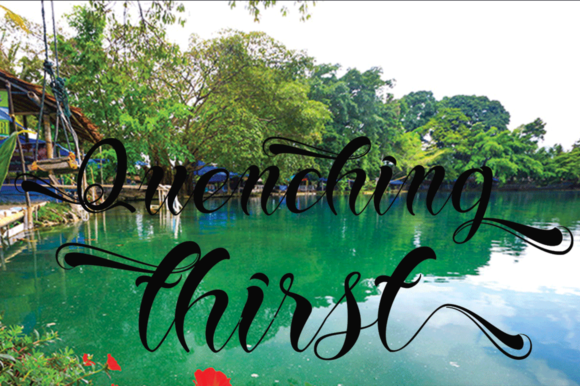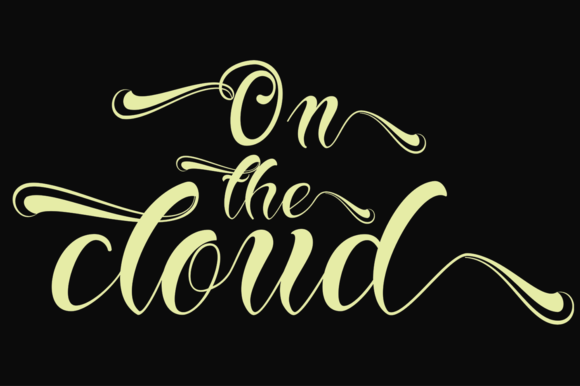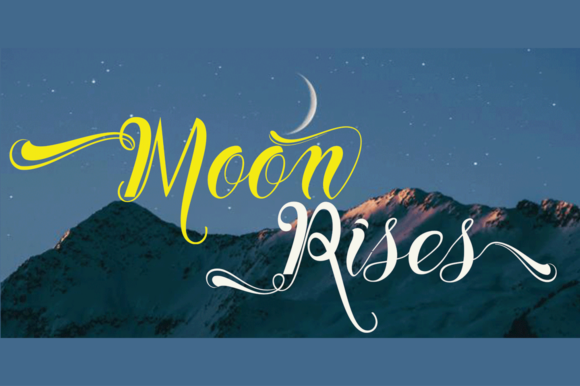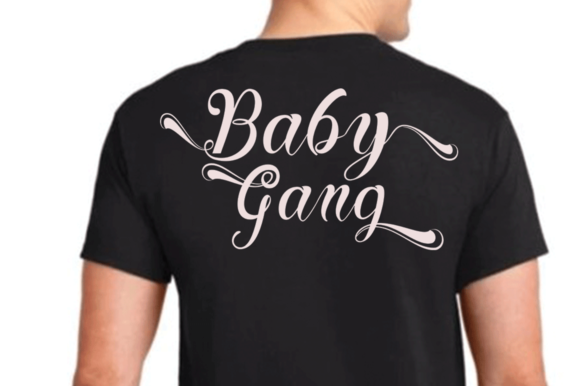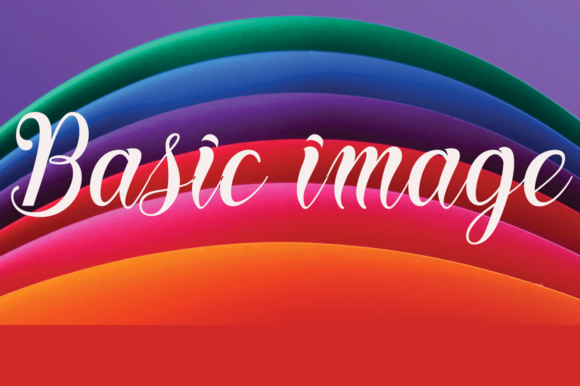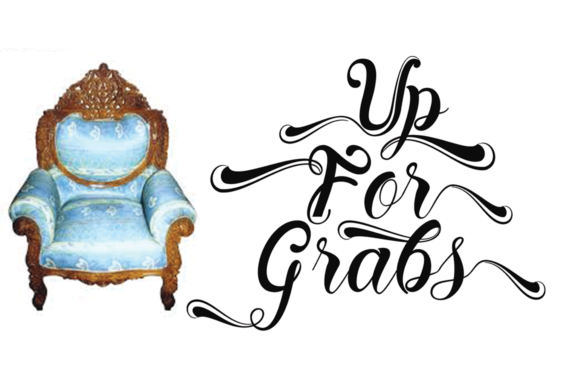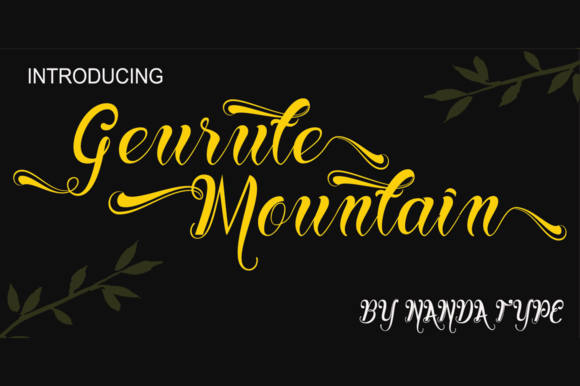
Introducing Geurute Font: Elevate Your Designs with Elegant Script
In the world of typography, a well-crafted font can make all the difference in elevating your design projects from ordinary to extraordinary. For designers and crafters seeking a touch of sophistication and elegance, Geurute Font is an exceptional choice. This beautiful script font, inspired by timeless classic calligraphy, brings a contemporary atmosphere and impeccable form to your creations.
The Inspiration Behind Geurute
Geurute Font draws its inspiration from the classic calligraphy of the past, yet presents itself with a modern twist. The result is a font that exudes elegance and refinement, perfect for a wide range of design applications. Whether you’re working on a branding project, packaging, wedding invitations, or any other creative endeavor, Geurute is designed to add a touch of luxury and sophistication.
Balanced and Varied: The Unique Characteristics of Geurute
One of the standout features of Geurute Font is its balanced and varied design. Not too thin and not too thick, each letter is carefully crafted to provide a harmonious flow and rhythm to your text. This balance ensures that your designs are not only visually appealing but also highly legible, making it an excellent choice for both headings and body text.
Key Features of Geurute Font
- Elegant Script Design: Geurute boasts a beautiful, flowing script style that adds a touch of class to any project.
- Contemporary Atmosphere: With its modern approach to classic calligraphy, Geurute brings a fresh and contemporary feel to your designs.
- Impeccable Form: Each letterform is meticulously designed to ensure a high level of quality and aesthetic appeal.
- Balanced and Varied: The font’s balanced stroke widths and varied letterforms create a dynamic and engaging text.
- Versatile: Suitable for a wide range of design projects, from luxury branding to elegant stationery.
How to Use Geurute Font in Your Projects
- Branding and Logo Design: Create memorable and sophisticated logos that stand out.
- Stationery and Invitations: Add an elegant touch to your wedding invitations, business cards, and letterheads.
- Packaging Design: Elevate your product packaging with a luxurious and high-end feel.
- Digital Media: Use Geurute in your website designs, social media graphics, and marketing materials to convey a sense of refinement and style.
Why Choose Geurute Font?
With so many fonts available, why choose Geurute? The answer lies in its unique blend of classic elegance and modern appeal. Geurute Font offers:
- Uniqueness: Stand out from the crowd with a font that is both distinctive and stylish.
- Quality: Professionally designed with attention to detail, ensuring high-quality output.
- Versatility: Suitable for a wide range of projects, making it a valuable addition to your font library.
| Author | Nandatype |
Geurute Font is a stunning script font that brings a touch of elegance and sophistication to any design project. Its balanced and varied design, inspired by timeless classic calligraphy, makes it an excellent choice for designers and crafters looking to elevate their creations. Whether you’re working on a luxury brand, elegant stationery, or any other design project, Geurute is sure to impress. Discover the beauty and versatility of Geurute Font and take your designs to the next level.